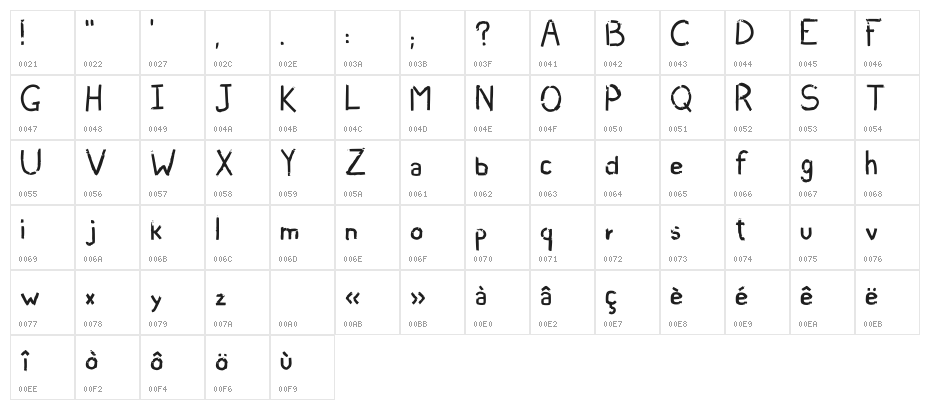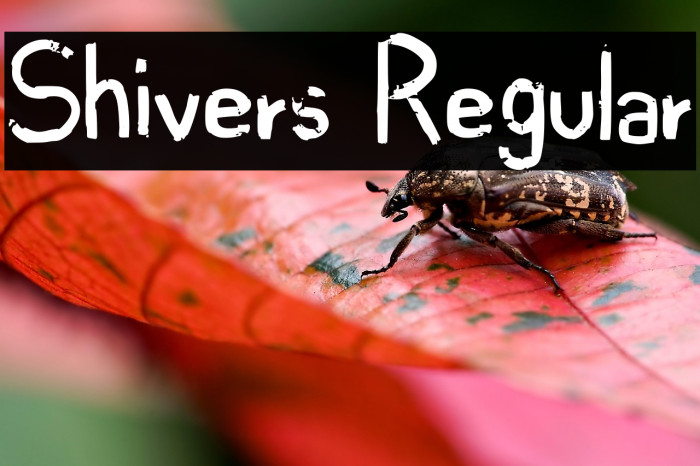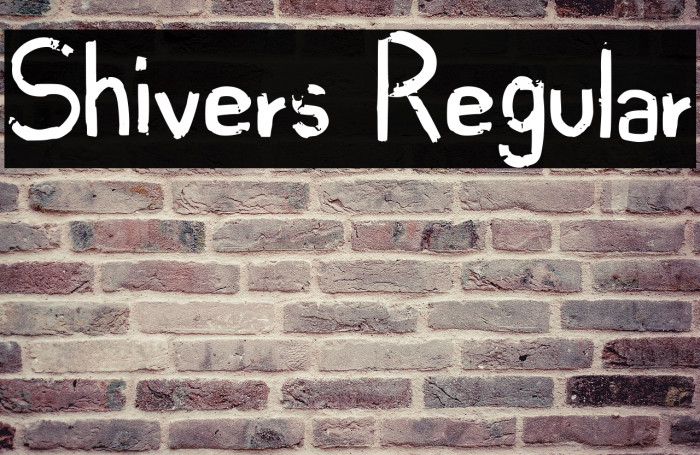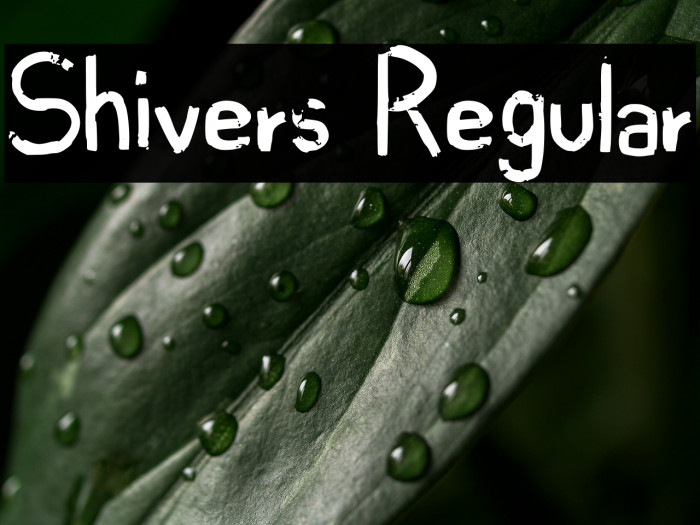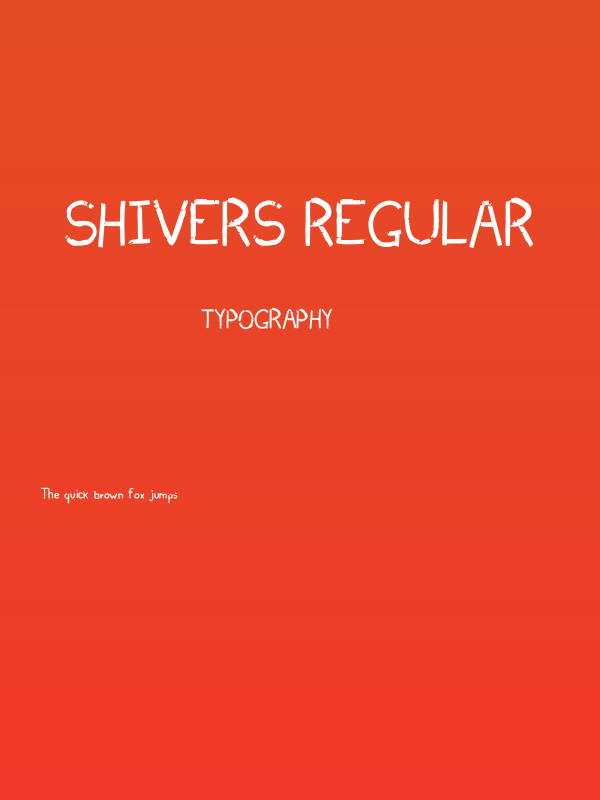
Shivers Regular Font
Shivers Regular Description
This font features a distressed, rough texture that gives it a unique, edgy appearance. The letters have an uneven, hand-drawn quality, with irregular edges and varying stroke widths that create a sense of movement and energy. The uppercase and lowercase letters maintain a consistent style, with a slightly condensed form that enhances its bold presence. The numerals and special characters follow the same rugged aesthetic, making it suitable for creative and unconventional designs. Its distinctive look makes it ideal for projects that require a touch of grunge or a handmade feel.
| Proposed Projects | Ideal for posters, album covers, Halloween themes, and artistic projects requiring a grunge or handmade look. |